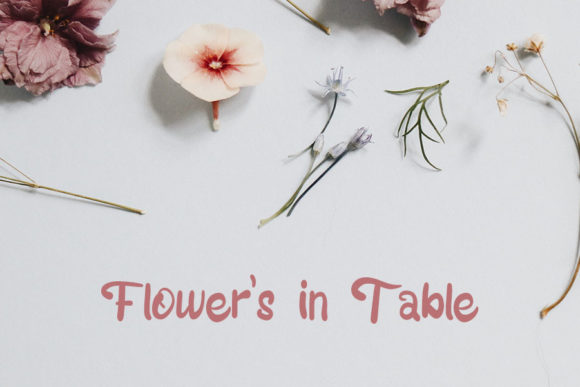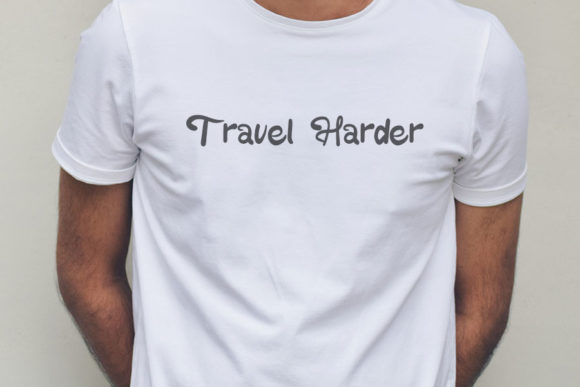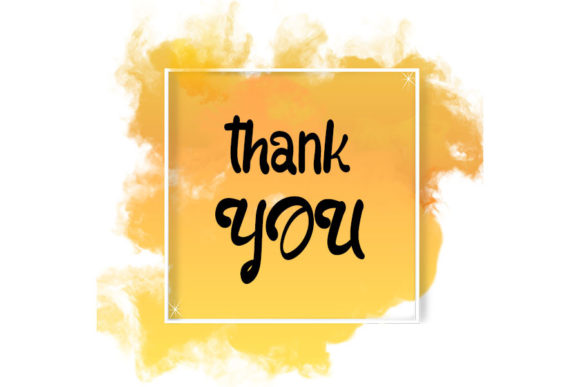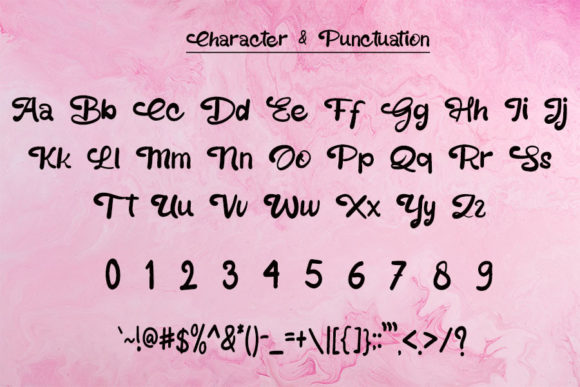
The Brother Font: A Creative Game-Changer
I’ll never forget the moment I stumbled upon the Brother font. I was working on a branding project for a trendy coffee shop, and I was determined to find the perfect handwritten font to capture their quirky vibe. After hours of scrolling through font libraries and testing out different options, I felt like I was stuck in a design rut. That’s when I discovered Brother – and it was love at first sight! 💕
So, what makes Brother so special? Let’s dive into the good stuff! 😊
- ✨ Unique and quirky personality that adds a touch of whimsy to any design
- ✅ Masterfully designed with a focus on legibility and aesthetics
- 💫 Highly versatile and pairs well with a variety of font combinations
- 🎨 Perfect for creative projects, such as branding, packaging, and advertising
Of course, no font is perfect, and Brother has a few minor quirks to keep in mind:
- 🤔 Some users may find the font a bit too condensed for certain design applications
- ⚠️ May not be the best choice for body text or long-form content due to its handwritten nature
The Story Behind Brother
Brother was designed by a talented type designer who wanted to create a font that was both unique and functional. With inspiration from classic handwritten fonts and a dash of modern flair, Brother was born. Today, it’s a favorite among designers and crafters who appreciate its quirky personality and versatility.
| Font Name | Brother Font |
| Author | muhawk47 |
| What is the Brother font best suited for? | Brother is perfect for creative projects, such as branding, packaging, and advertising. It’s also great for social media graphics, blog posts, and other digital content. |